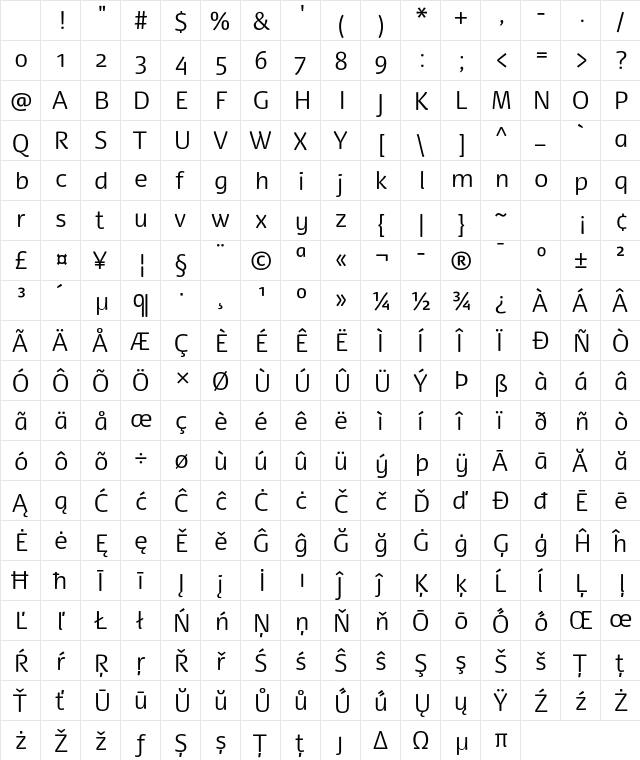
Dancer Pro is a composed and adaptable typeface that performs quietly and consistently across a wide range of design contexts. Its slender proportions lend an understated elegance to any composition.